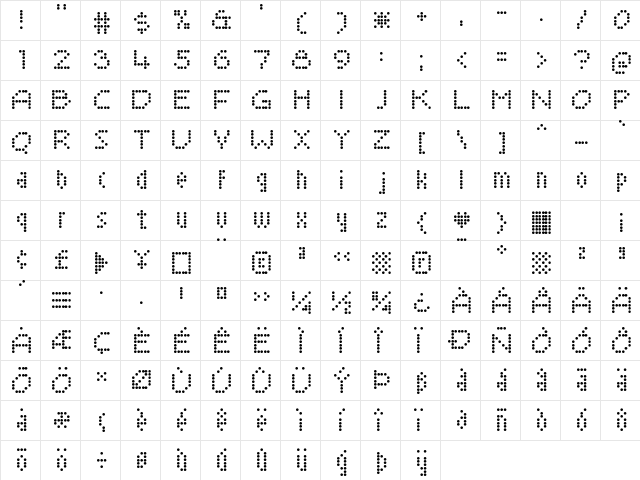
Sayso Chic Regular
Design Context for Sayso Chic Typeface
Sayso Chic takes a measured approach to typography — its balanced proportions and neutral character make it a reliable workhorse for both digital and print work.